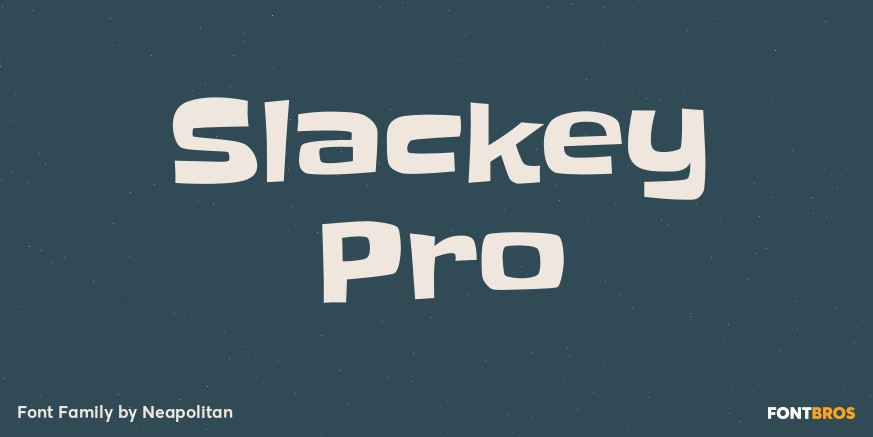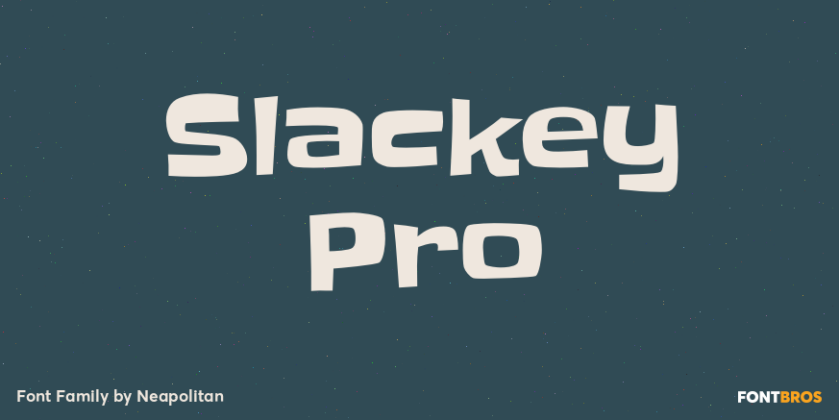
Slackey Pro
About Slackey Pro
Don\’t let the name fool you! Slackey really pulls its weight when you need a fun, chunky display font. So next time you have a weighty headlining chore to do, let Slackey do all the heavy lifting! Designed with a good work ethic and plenty of manual labor…